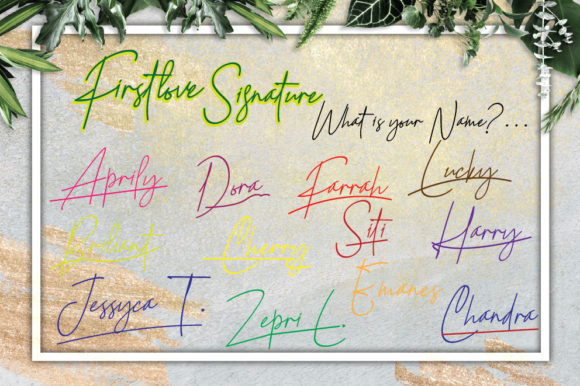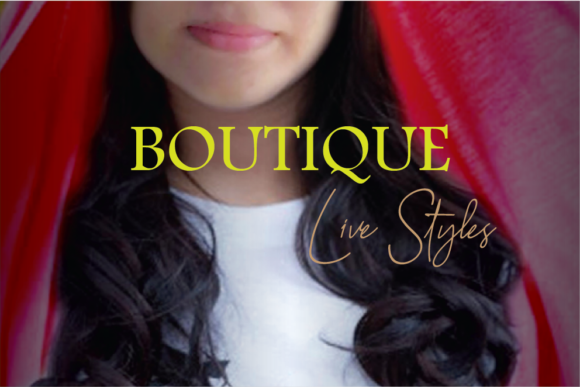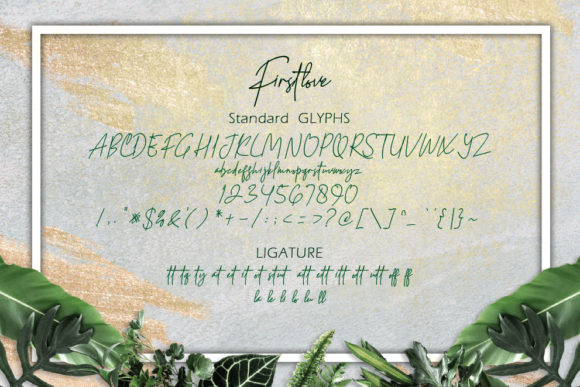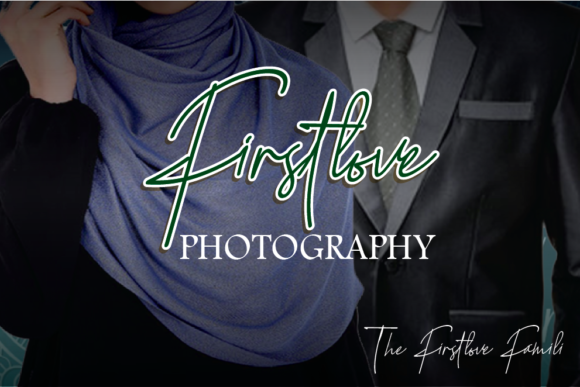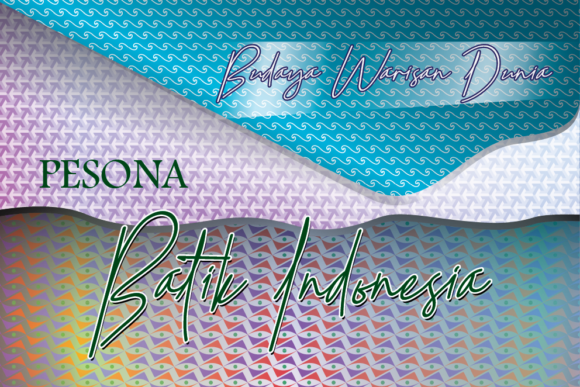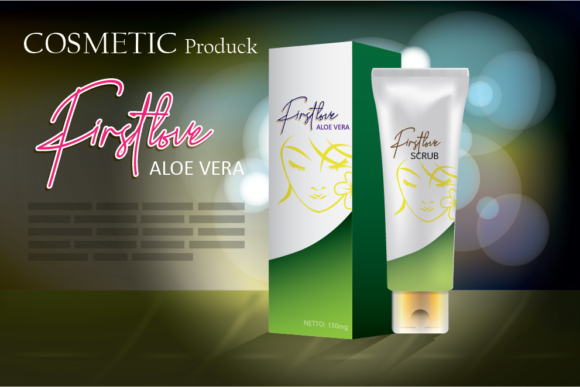
Introducing Firstlove Font: The Perfect Script Font for Your Design Projects
Are you tired of using the same old fonts for your design projects? Look no further than Firstlove Font, a lovely and wonderful script font that will add a personal touch to any design project. In this article, we’ll dive into the world of Firstlove Font and explore its features, benefits, and uses.
What is Firstlove Font?
Firstlove Font is a beautiful script font that is perfect for adding a touch of elegance and sophistication to your design projects. Its flowing lines and delicate curves make it a versatile font that can be used for a wide range of applications, from wedding invitations and greeting cards to branding and packaging.
Features of Firstlove Font
So, what makes Firstlove Font so special? Here are just a few of its key features:
• Unique and elegant design: Firstlove Font has a distinctive and stylish design that will set your projects apart from the rest.
• Highly legible: Despite its elegant design, Firstlove Font is highly legible, making it perfect for use in body text as well as headings.
• Support for multiple languages: Firstlove Font supports multiple languages, making it a great choice for designers who work with international clients.
Benefits of Using Firstlove Font
So, why should you choose Firstlove Font for your design projects? Here are just a few of the benefits of using this lovely script font:
• Adds a personal touch: Firstlove Font adds a personal touch to any design project, making it perfect for use in wedding invitations, greeting cards, and other personal stationery.
• Enhances brand identity: Firstlove Font can be used to create a unique and memorable brand identity that sets your clients apart from the competition.
• Versatile: Firstlove Font can be used for a wide range of applications, from print materials to digital designs.
Uses of Firstlove Font
So, what can you use Firstlove Font for? Here are just a few ideas to get you started:
• Wedding invitations and stationery: Firstlove Font is perfect for use in wedding invitations, save-the-date cards, and other wedding stationery.
• Greeting cards and gift tags: Firstlove Font can be used to create beautiful and personalized greeting cards and gift tags.
• Branding and packaging: Firstlove Font can be used to create a unique and memorable brand identity that sets your clients apart from the competition.
• Digital designs: Firstlove Font can be used in digital designs, such as social media graphics, blog posts, and email marketing campaigns.
Tips for Using Firstlove Font
Here are a few tips for using Firstlove Font in your design projects:
• Use it sparingly: Firstlove Font is a beautiful font, but it can be overwhelming if used too much. Use it sparingly to add a touch of elegance to your designs.
• Pair it with other fonts: Firstlove Font can be paired with other fonts to create a unique and interesting design.
• Experiment with different colors: Firstlove Font looks great in a variety of colors, so don’t be afraid to experiment and find the perfect color for your design.
In conclusion, Firstlove Font is a lovely and wonderful script font that will add a personal touch to any design project. Its unique and elegant design, highly legible, and support for multiple languages make it a versatile font that can be used for a wide range of applications. Whether you’re a designer, crafter, or DIY enthusiast, Firstlove Font is a great choice for adding a touch of elegance and sophistication to your designs.